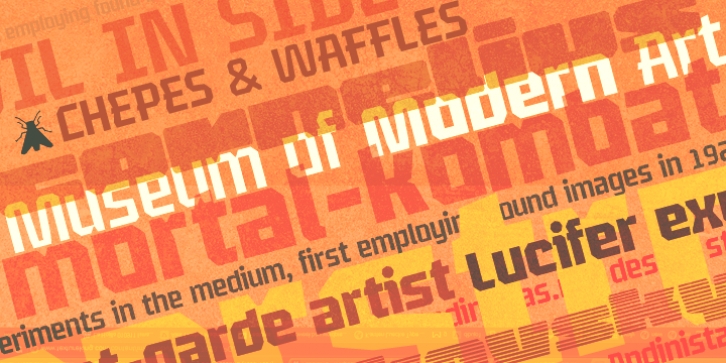
Leroy is a font family of 5 members designed from geometrizing Roman and Gothic skeletons. Its purpose is to provide optimal reading of titles and paragraphs with strong mechanical flavor. Because of this, its variables are designed to sort information in media such as labels, signs and industrial atmosphere packaging related with the Soviet Union’s fonts in 1920. This idea matured white horizontal lines superimposed on alphabets drawn with an ancient architectural team known as “Leroy K & E Controlled Lettering System”. Then that evolved into a family concept unifying its proportion to the same X height for its members, resulting in a versatile type system.
Therefore, Regular and Bold variables have low contrast between thick and thin strokes. Its upstream and downstream are extremely short, generating a suitable interline that clogs the vertical area. Its overall width equal to its X height, supports its tight spacing that compacts the horizontal area. Therefore, the variant with black caliber has plenty of contrast between thick and thin strokes. The light variable has a “blind” effect radiating light halos, ideal to propose hierarchies and combinations with orthogonal projection. In that sense, Leroy’s modular character reminds constructivist ideology merged with typographical variants suitable for graphic design with geometric look.
To achieve this, I studied the softening of forms and counter blocks into a typographical system specially designed for composing useful information to attract attention. In that sense, the dingbats were obtained through a careful process of research and testings done with drawings that provided full and empty visual strategies that with the passage of time helped to forge the major decisions of a metamorphosis from industrial tools, birds and humans from pictogram mixing various genres.